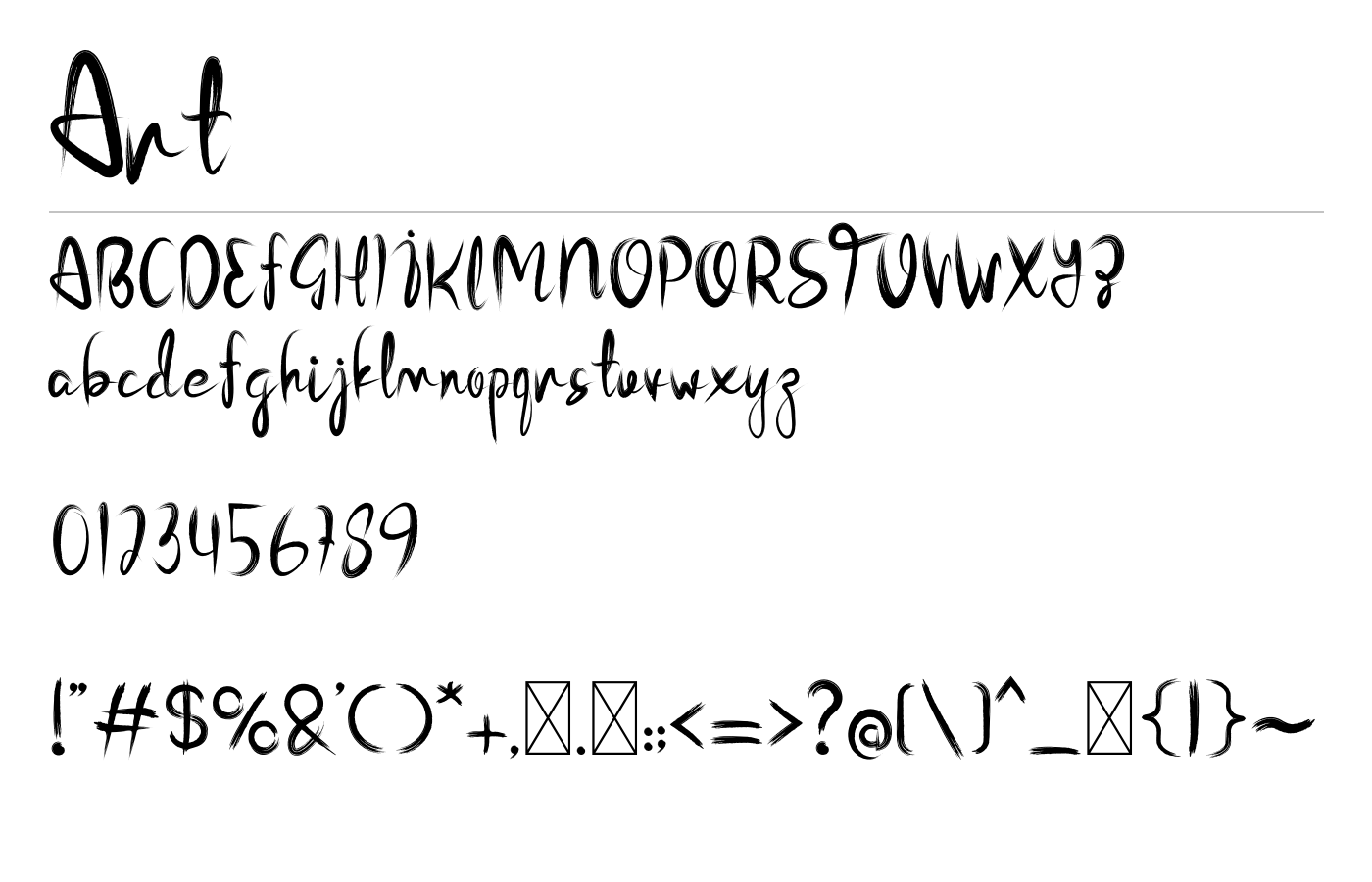
Art Font is a lively and expressive handwritten typeface with a brushstroke feel, featuring varying stroke weights that create a dynamic and artistic look. Its tall, narrow letterforms and distinctive, quirky shapes make it perfect for creative projects, adding a personal and energetic touch to logos, posters, and artistic branding. This font captures a playful yet bold personality, ideal for designs that want to stand out with a handcrafted, unique style.
Art Font
About Art Font
| Font family | Art Font |
| Designer | designvector10 |